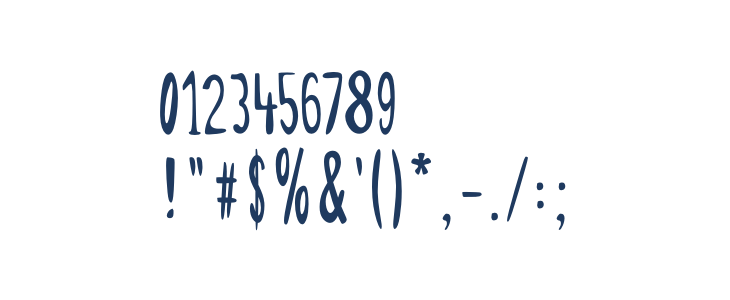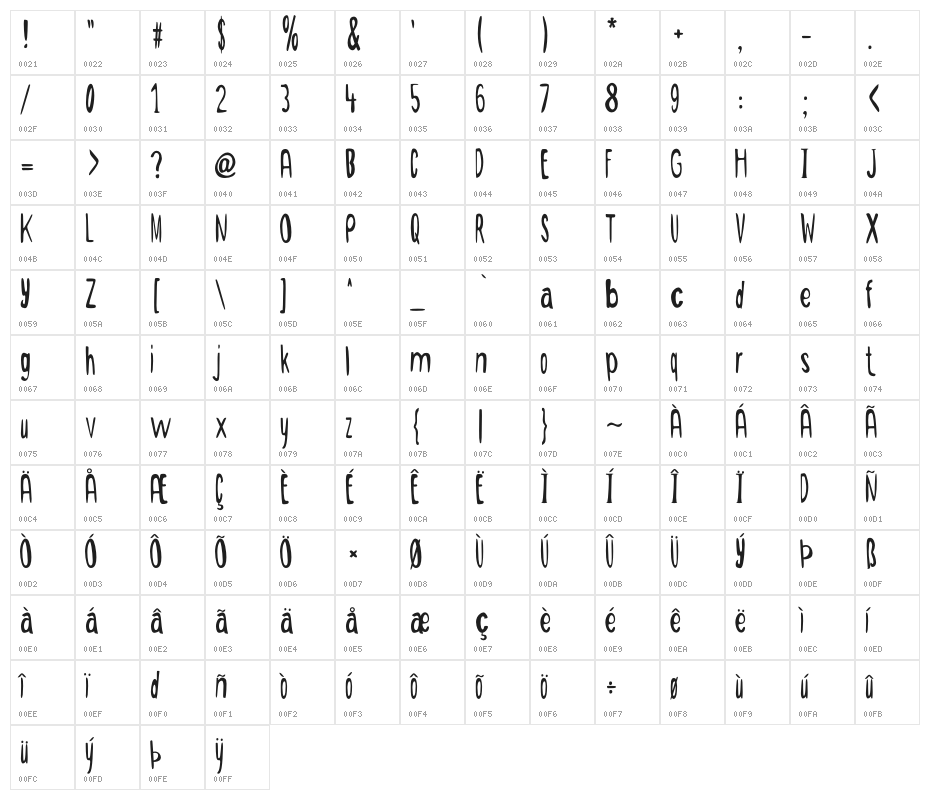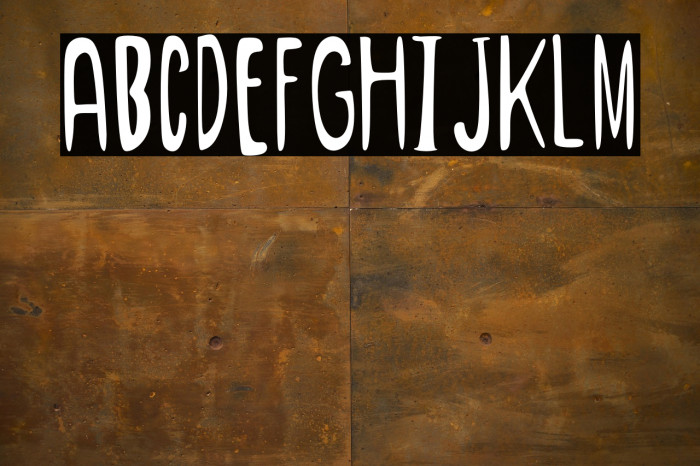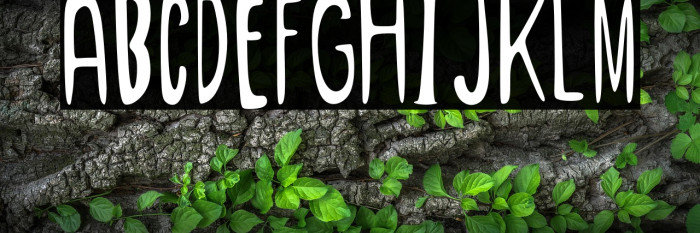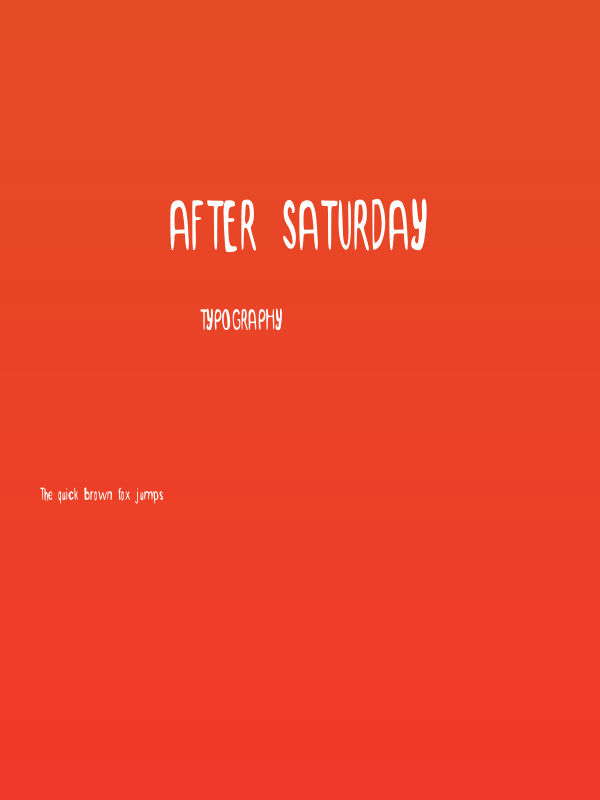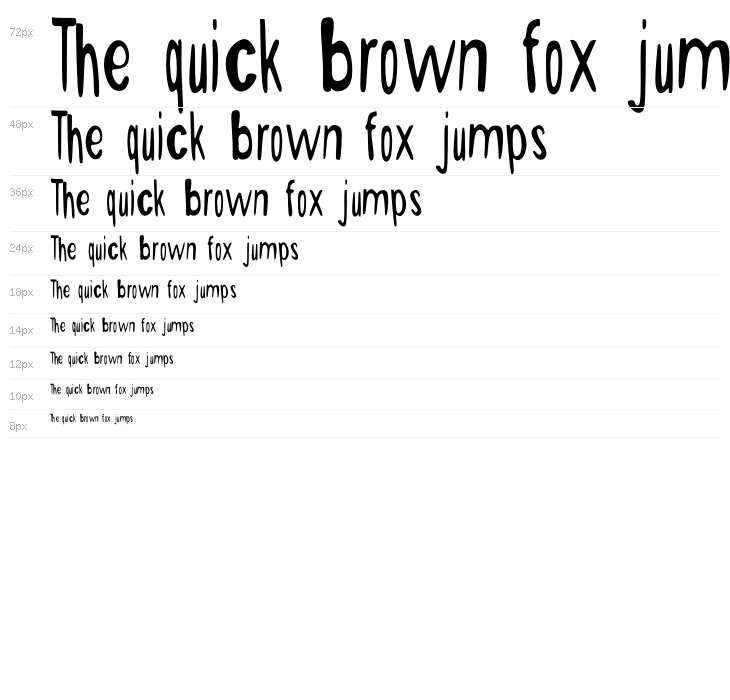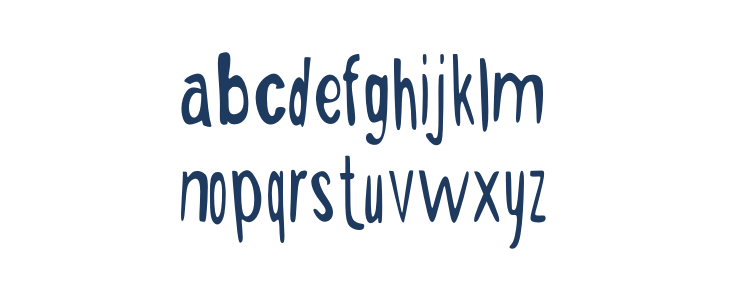
After Saturday Font
After Saturday Description
This font features a playful and casual handwritten style, characterized by its irregular and organic letterforms. The uppercase letters are tall and narrow, with a slight slant that adds a dynamic feel. The lowercase letters are more rounded and compact, providing a nice contrast to the uppercase. Numbers and special characters maintain the same whimsical style, making the font versatile for various creative projects. The strokes are consistent in weight, giving it a cohesive look, while the character spacing is slightly wide, enhancing readability.